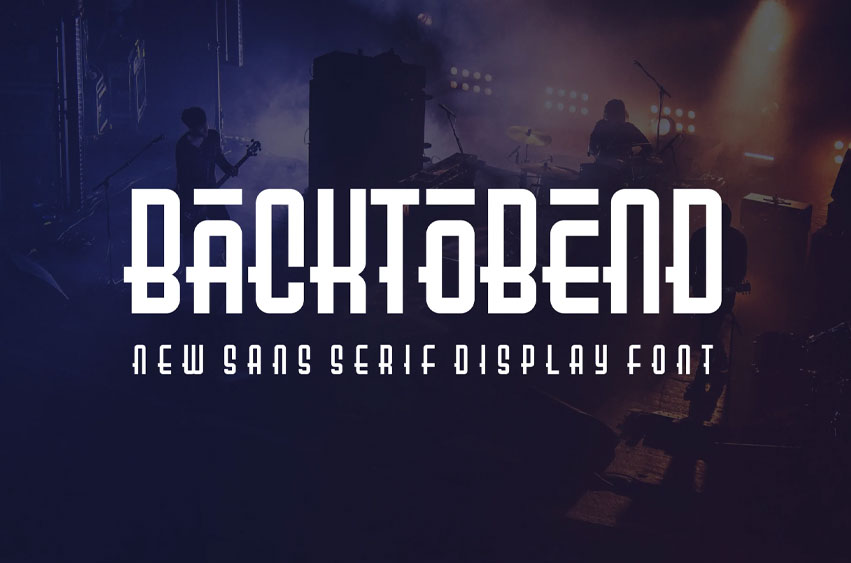
Backtobend Font
Backtobend Font Modern Font is a bold and authentic display font. The font is suitable for any branding project like logo, t-shirt printing, esports, and many more. outstanding in a wide range of contexts.